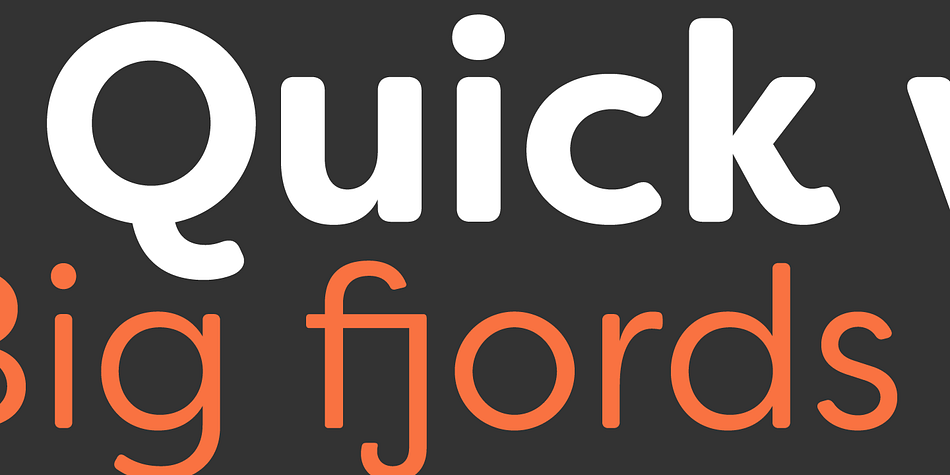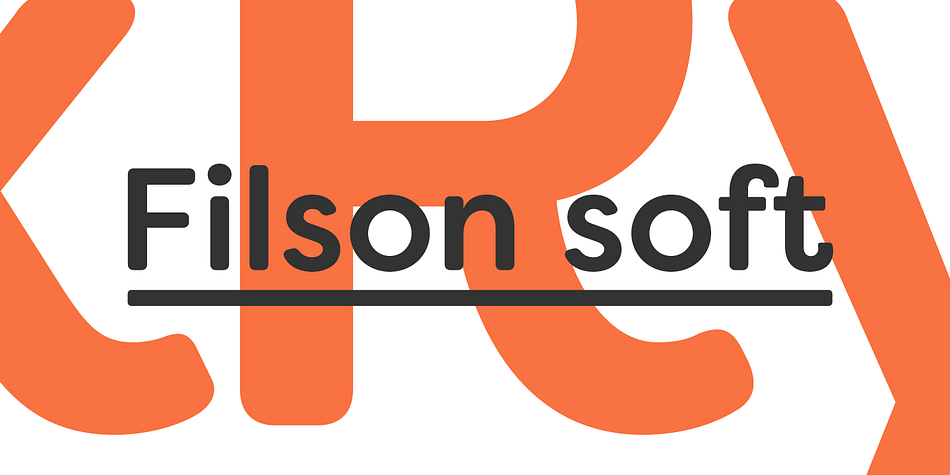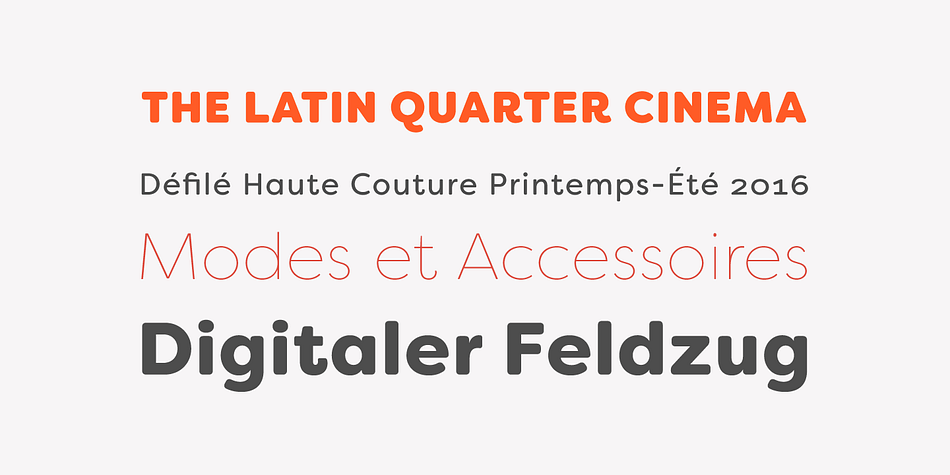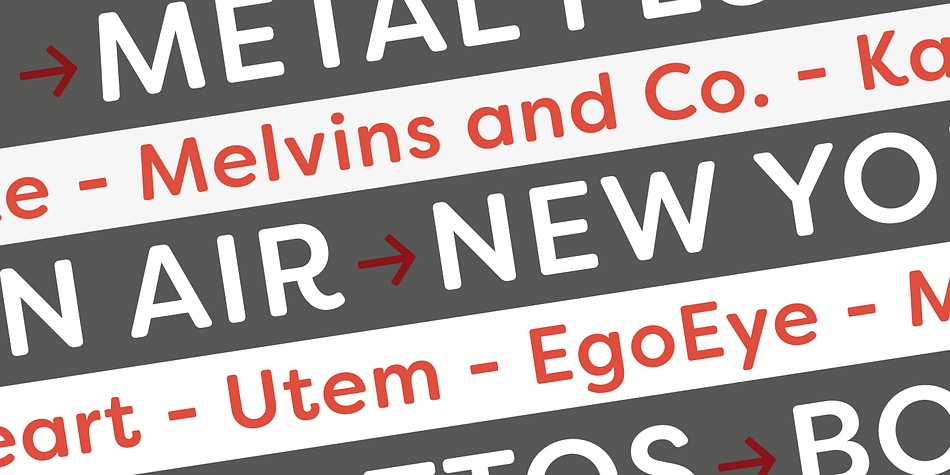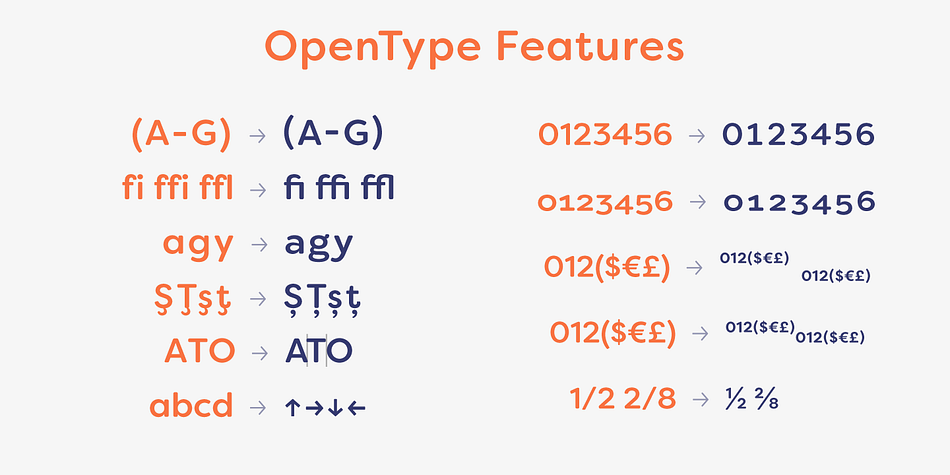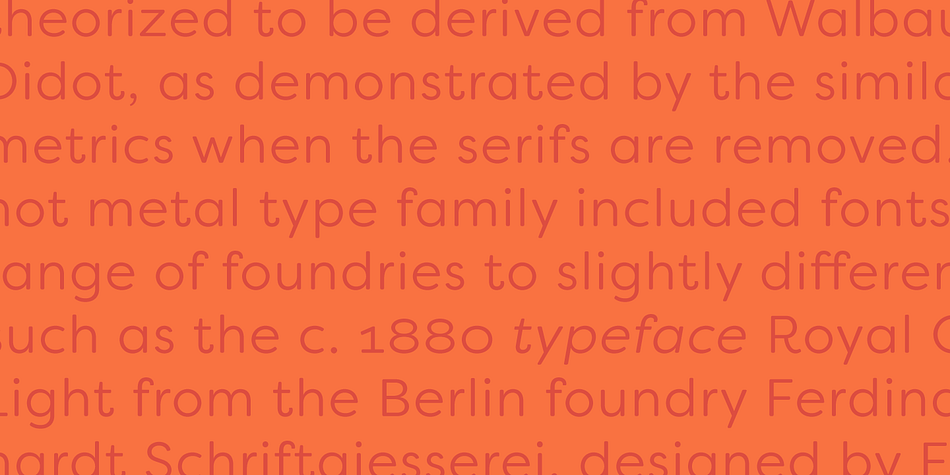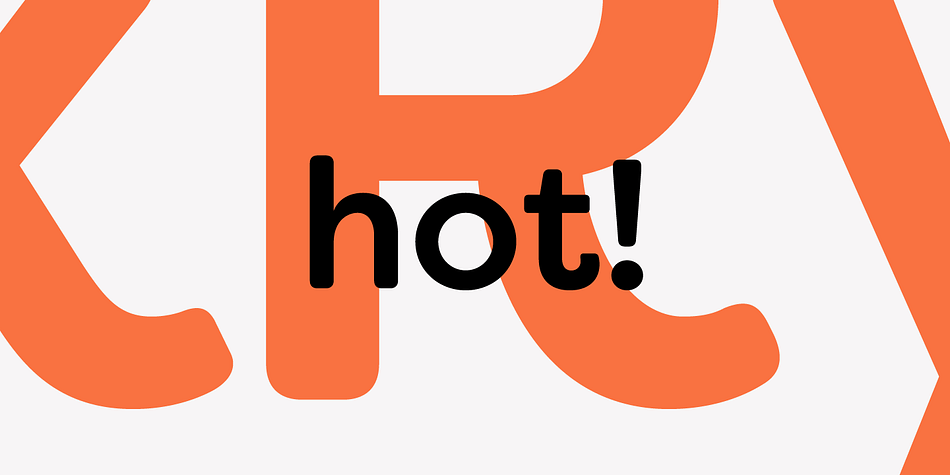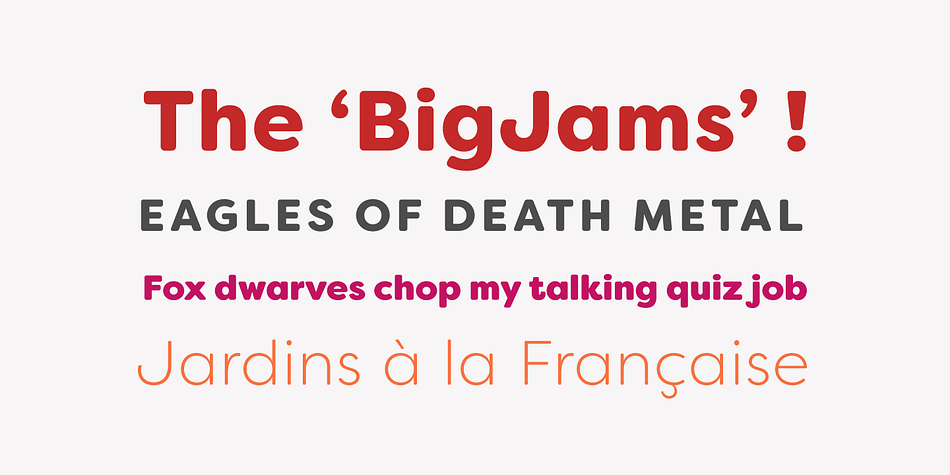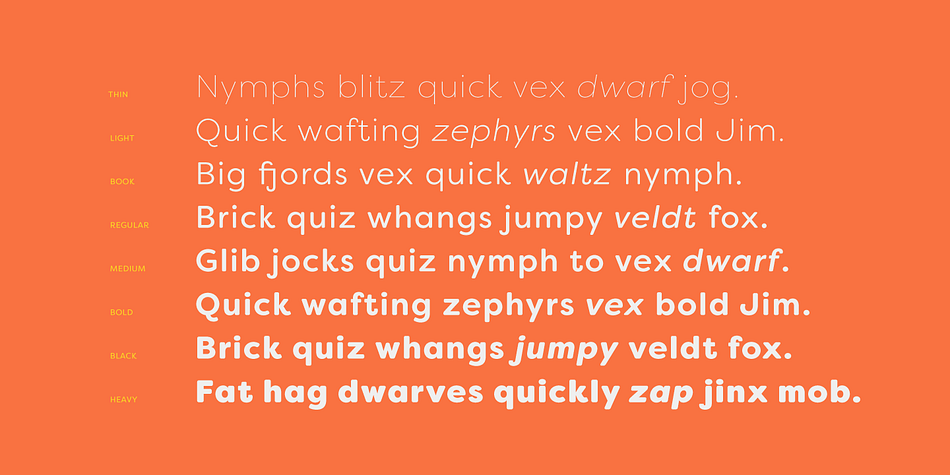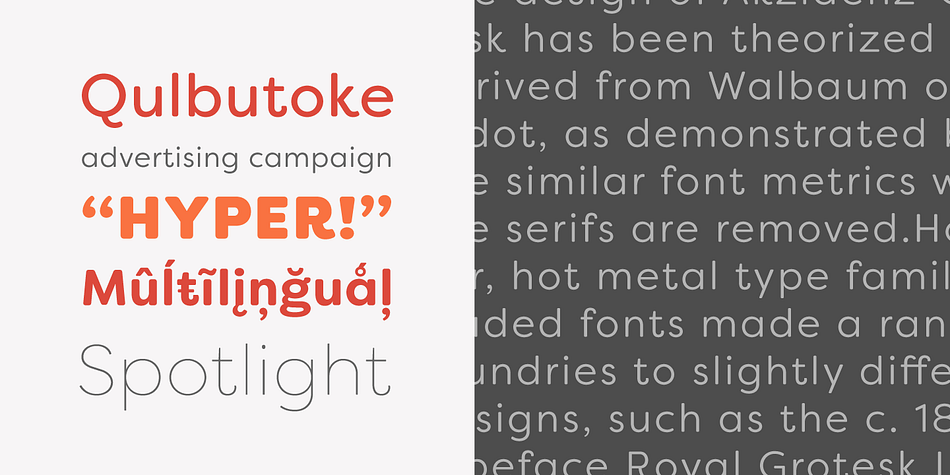
Filson Soft is a sans serif font family. This typeface has sixteen styles and was published by Mostardesign.
Filson Soft is the rounded version of the popular Filson Pro. At first sight, the main feature of Filson Soft are the distinctive letters ‘K’, ‘Q’ and especially ‘R’ that make the font family very elegant. With its rounded terminaisons, this font family is also perfect for original titles and will give you future creations a nicely friendly aspect.
But with all these originals features, Filson Soft is highly legible and quite versatile. Its large x-height, even performs nicely in small sizes. Filson Soft comes in 8 weights - Thin, Light, Book, Regular, Medium, Bold, Black, Heavy with a professional range of Opentype functions such as lining and oldstyle figures, stylistic alternates, case sensitive forms, localized forms, stylistic set, arrows and f-ligatures. For better typographic control, Filson Soft also includes an OpenType class kerning with thousands of kerning pairs.